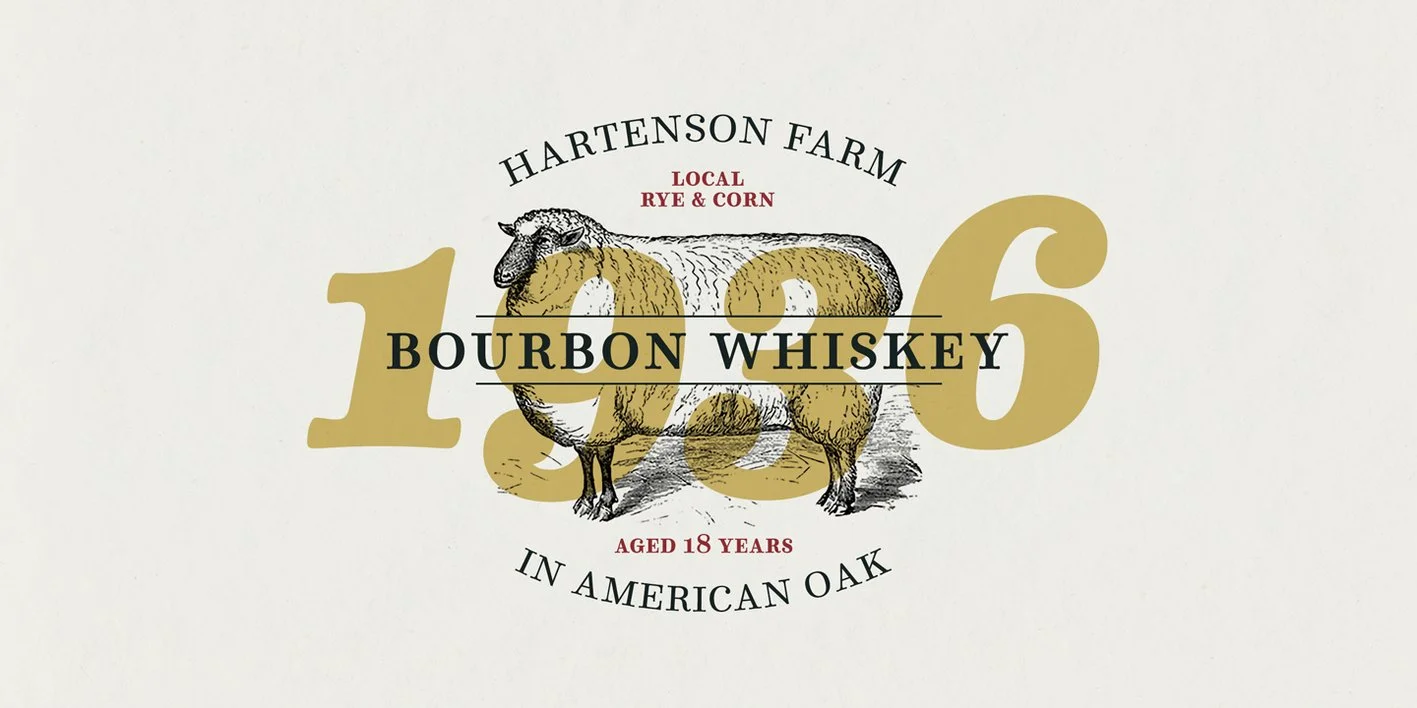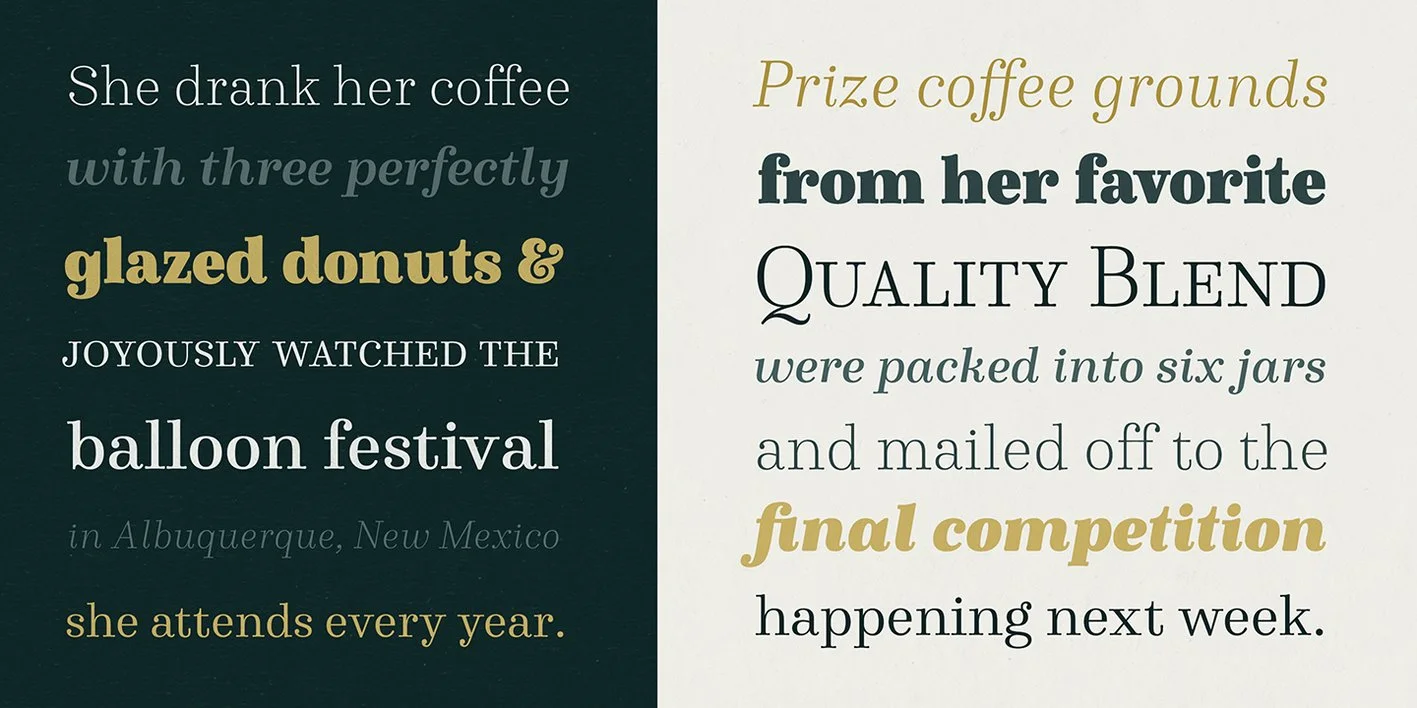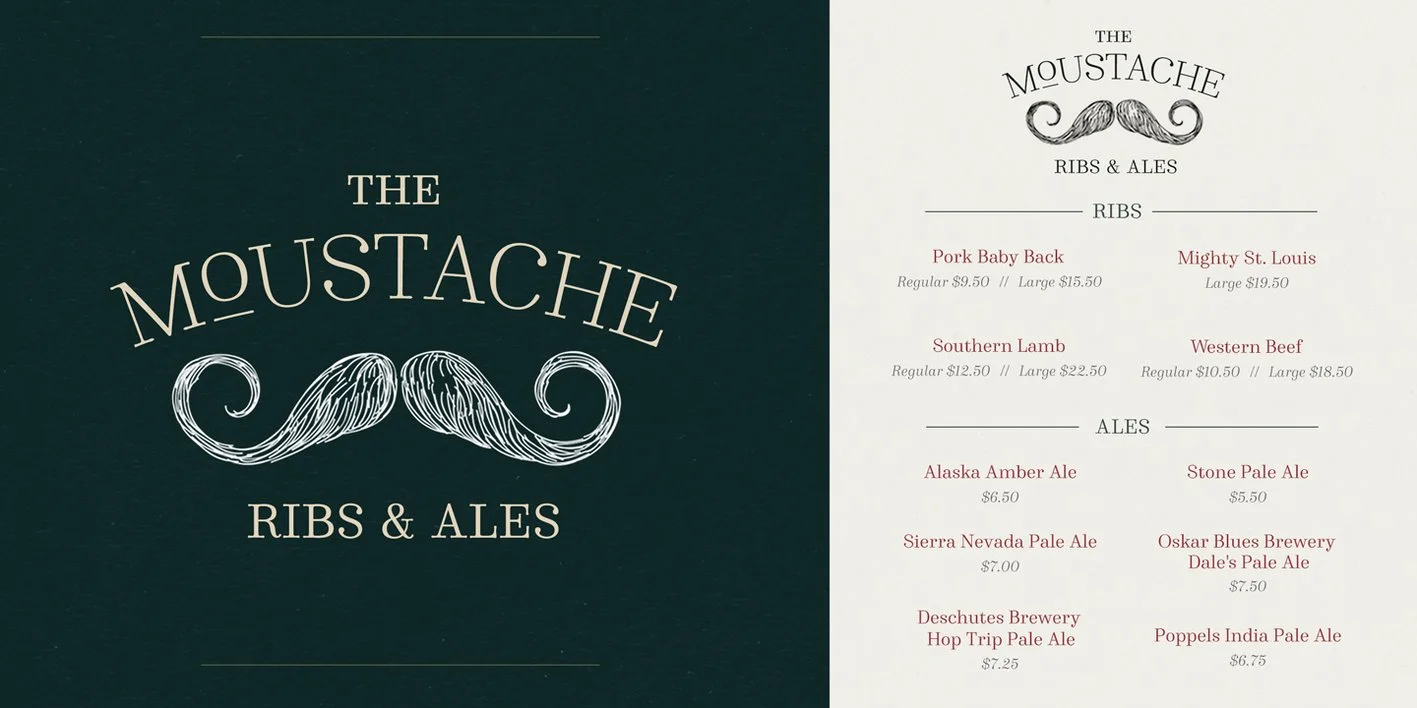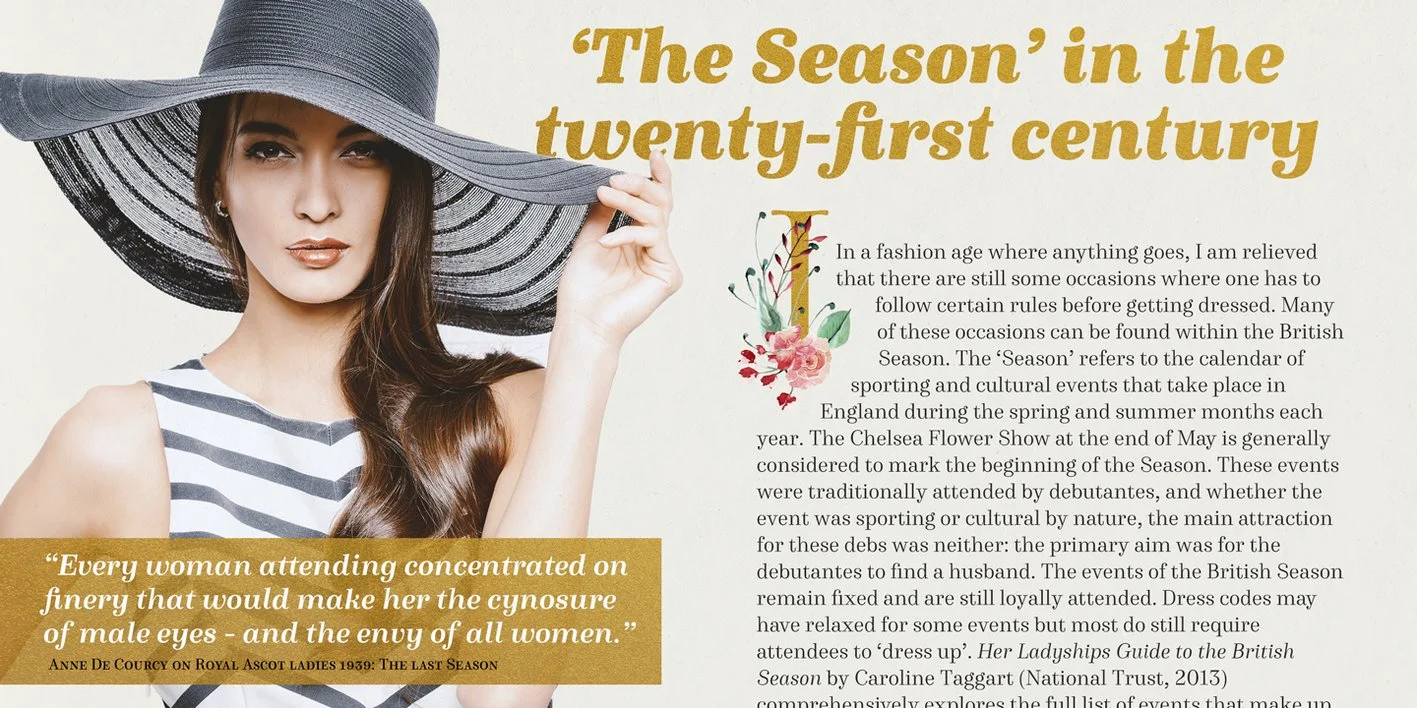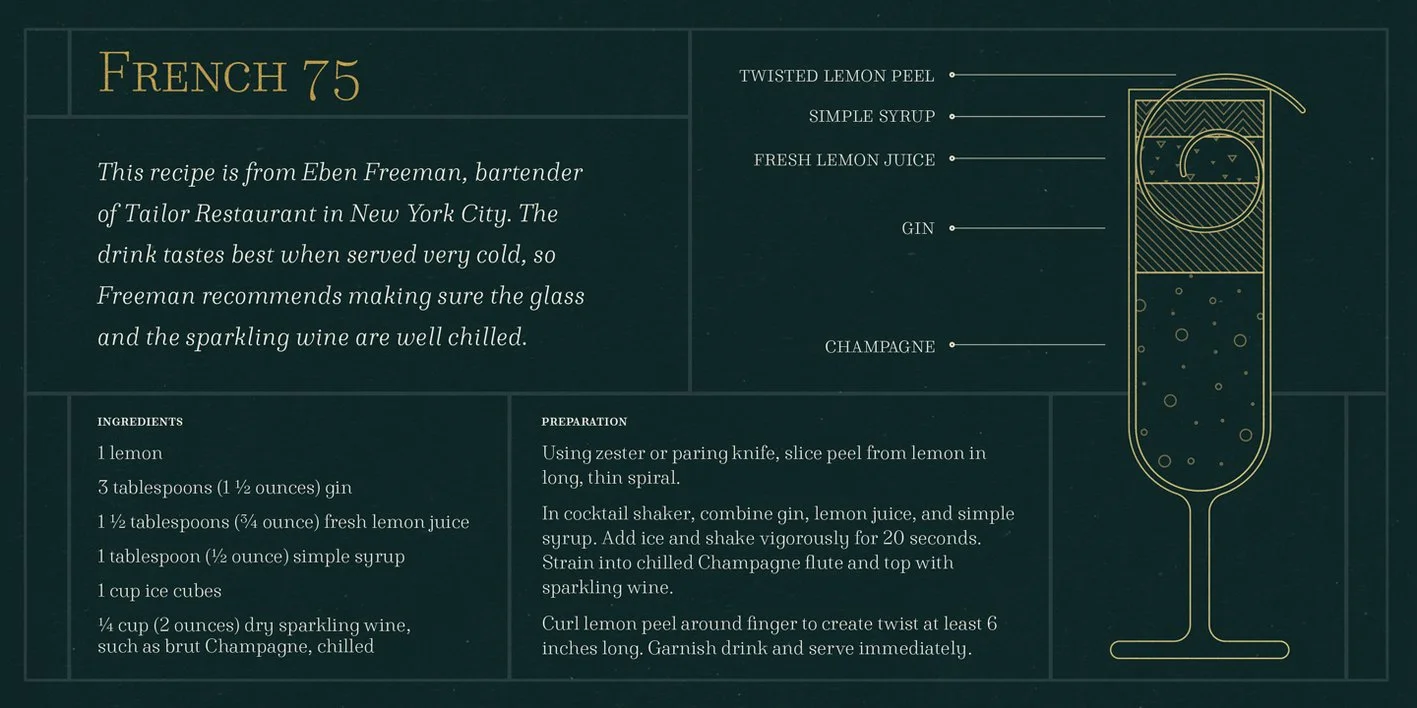
Winslow Book Font
A good typeface communicates tone before a single word is read. Winslow Book achieves this through refined proportions and careful stroke modulation. The typeface brings a versatile sensibility to a broad range of creative disciplines, with the kind of restraint that lets content lead that holds up whether the work is print-first or screen-first.
In practice, Winslow Book proves particularly effective for environmental graphics, packaging design, advertising campaigns, editorial layouts, social media graphics. Designers reaching for it find that the type decisions feel resolved rather than laboured — a useful quality when client timelines are tight.
The range of applications extends to poster creation, logo design, signage systems, brand identity systems. That breadth is deliberate: the proportions and spacing were stress-tested across a wide range of mock briefs before the typeface was finalised.
At smaller sizes the design retains its character without becoming cluttered. This resilience across scales makes Winslow Book equally suitable for a business card and a billboard — a useful property when assets must scale across a campaign.
Independent studios handling packaging and editorial work find Winslow Book a reliable choice for projects that demand both personality and restraint. The design avoids the self-conscious quirkiness that dates quickly, settling instead for considered distinctiveness that holds up over time.